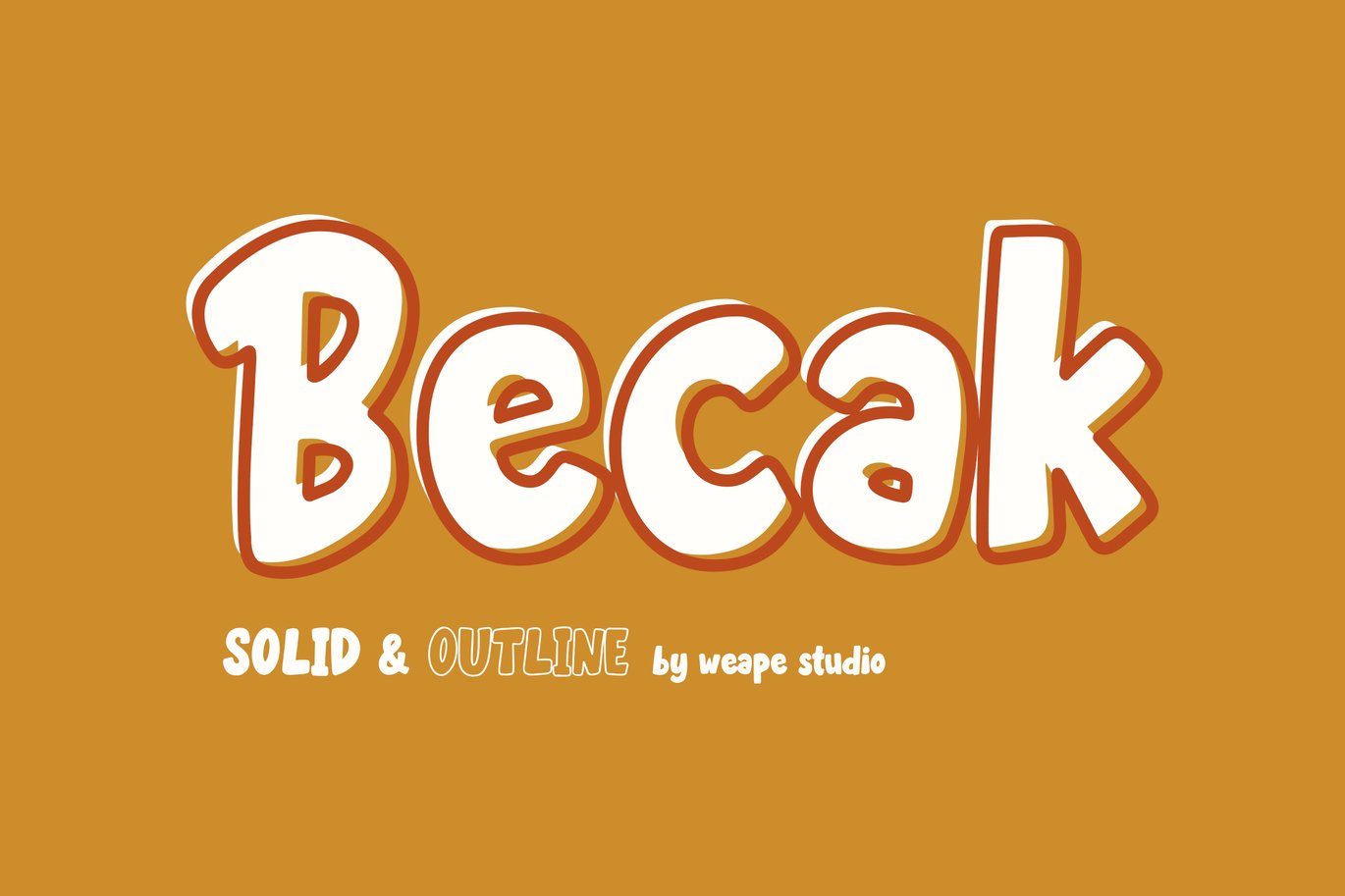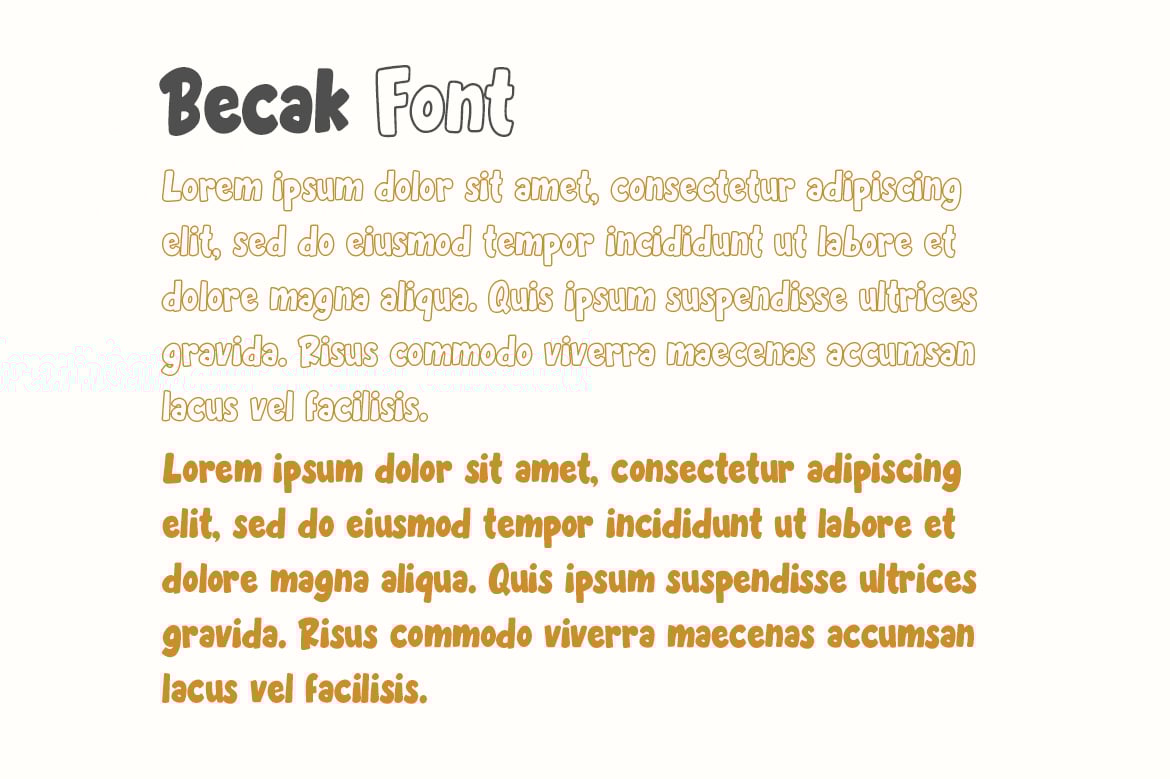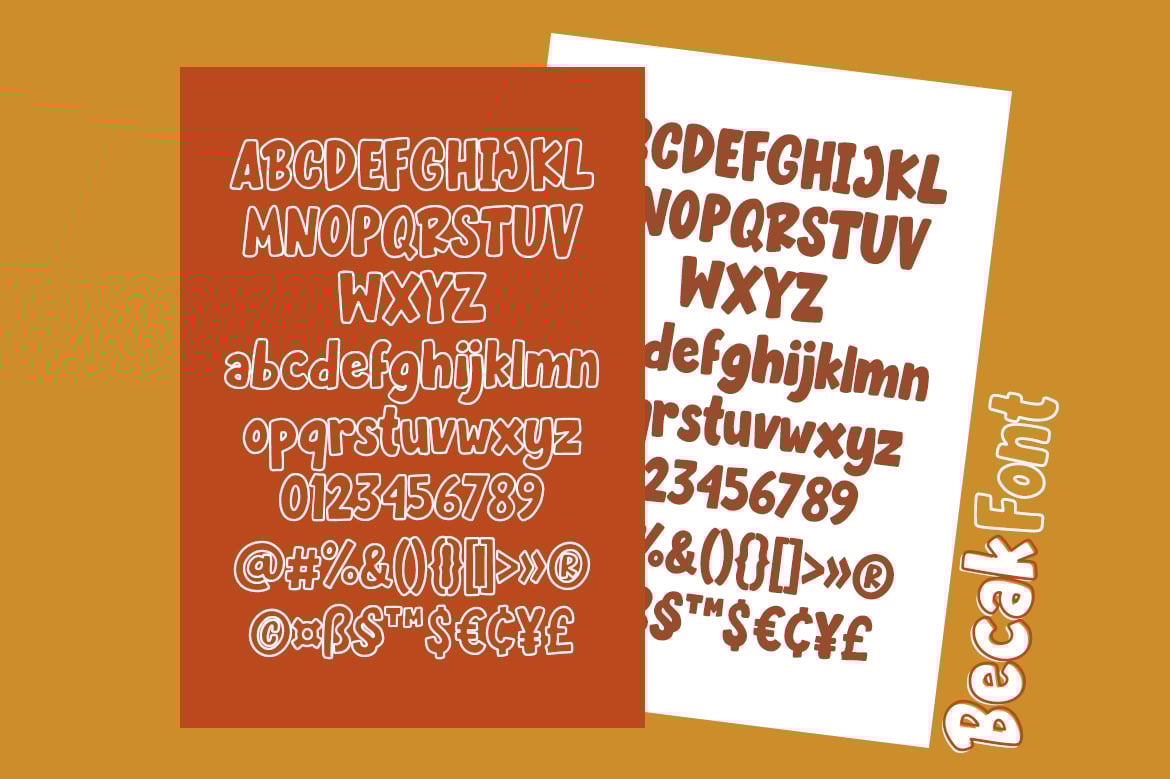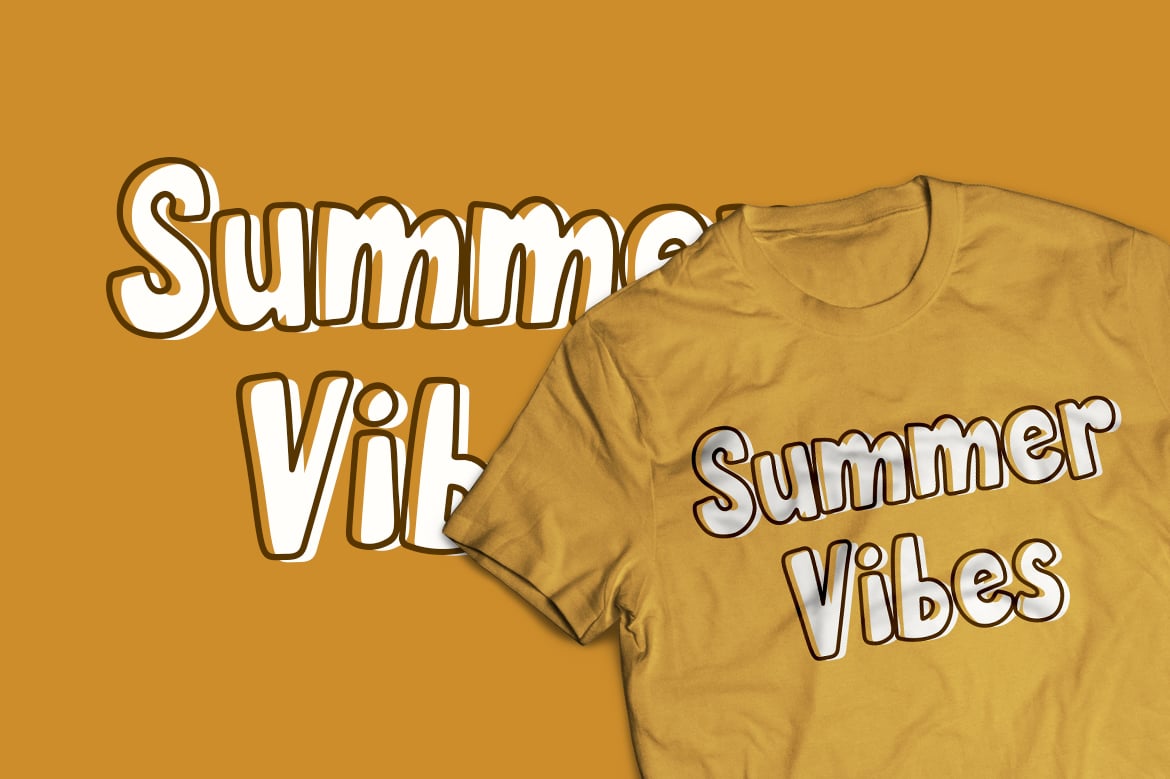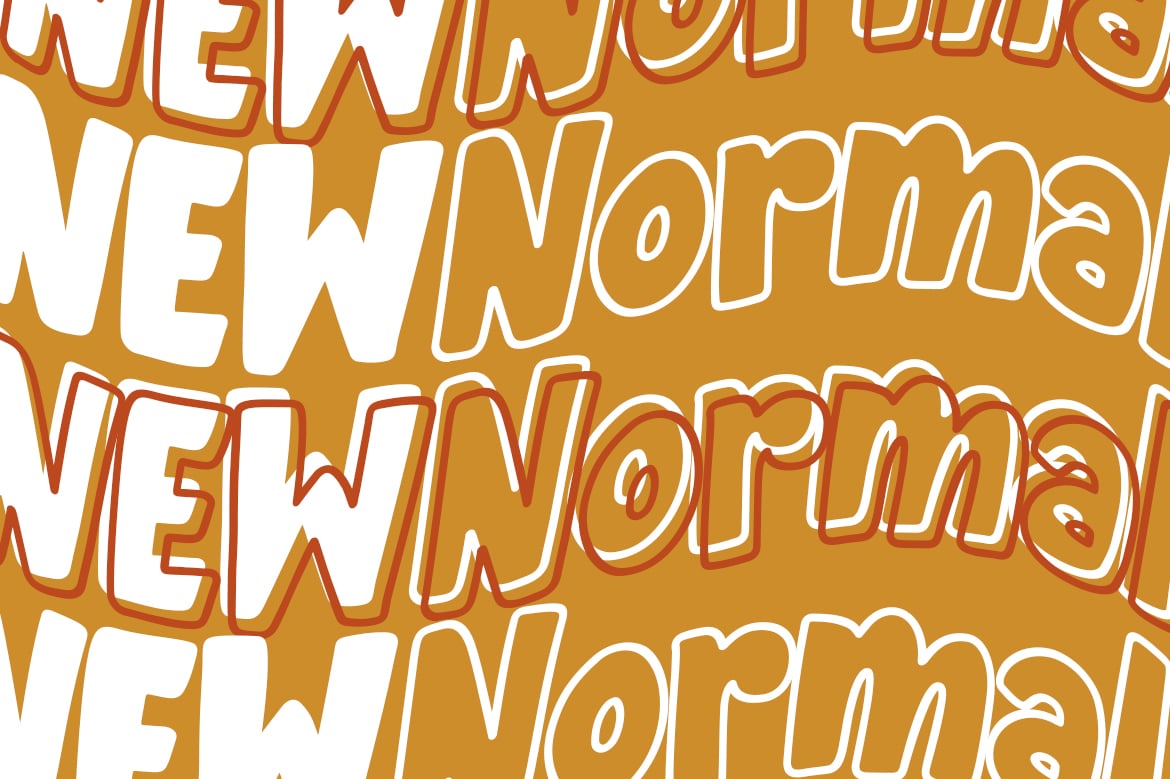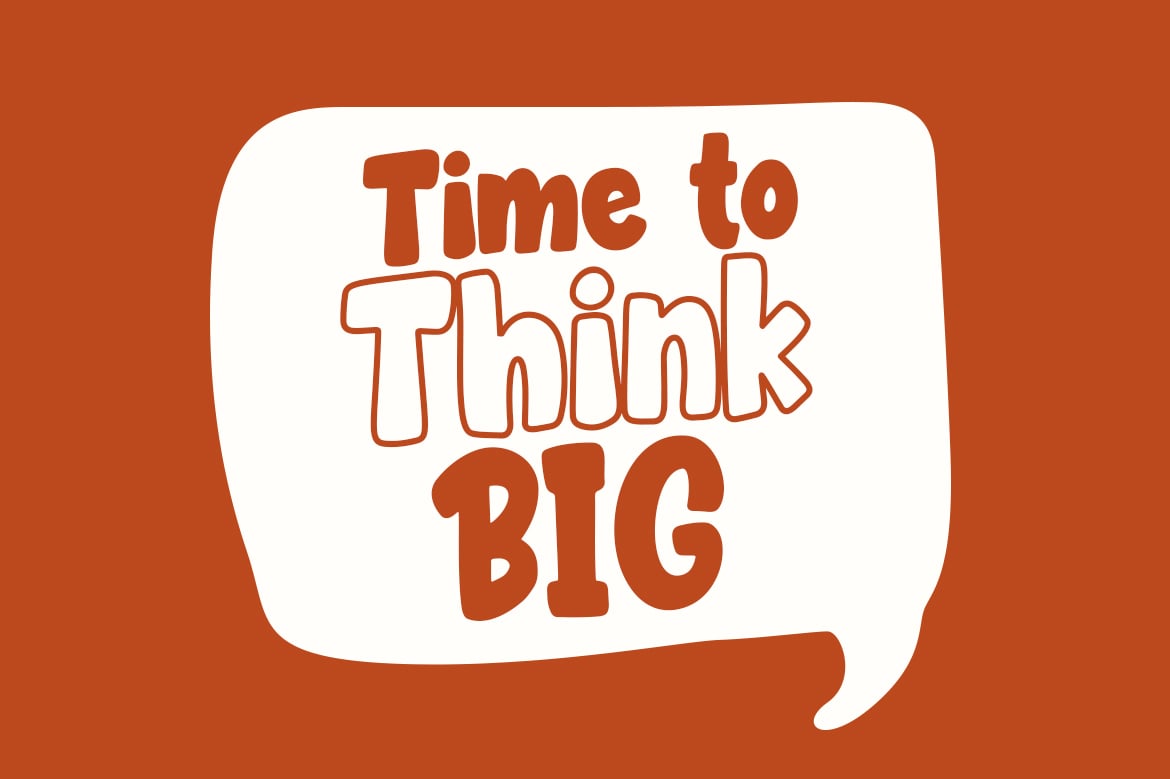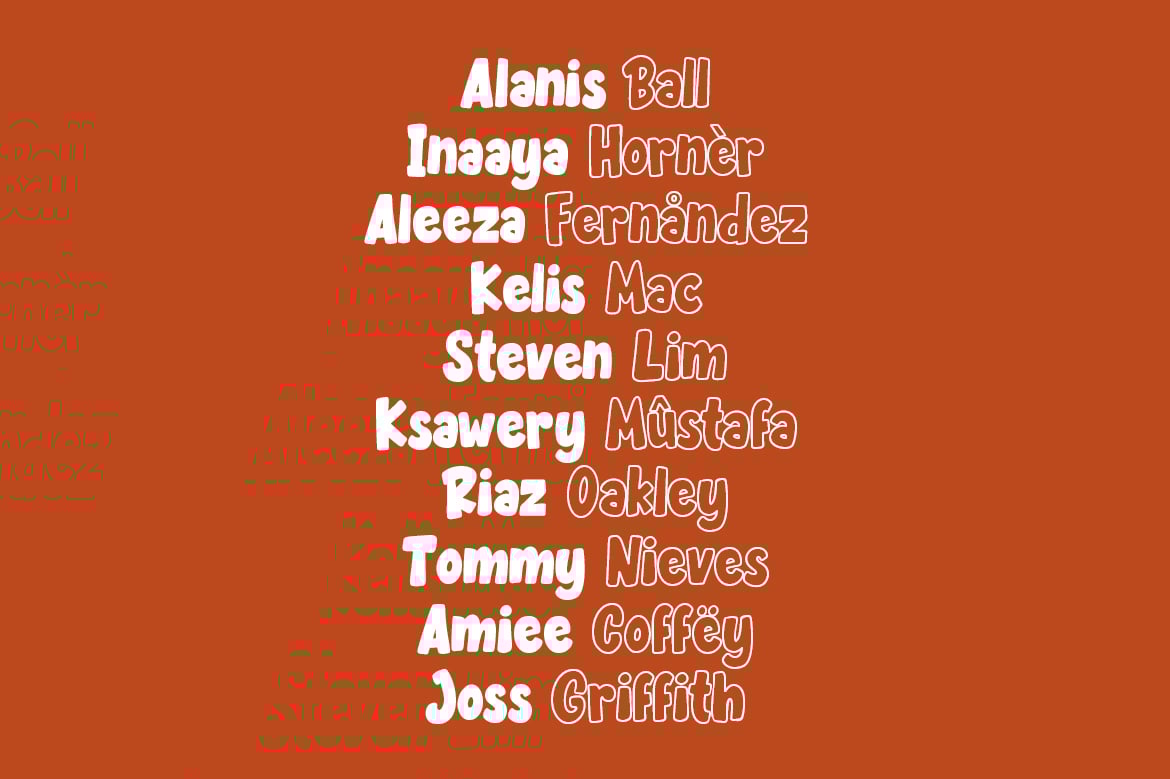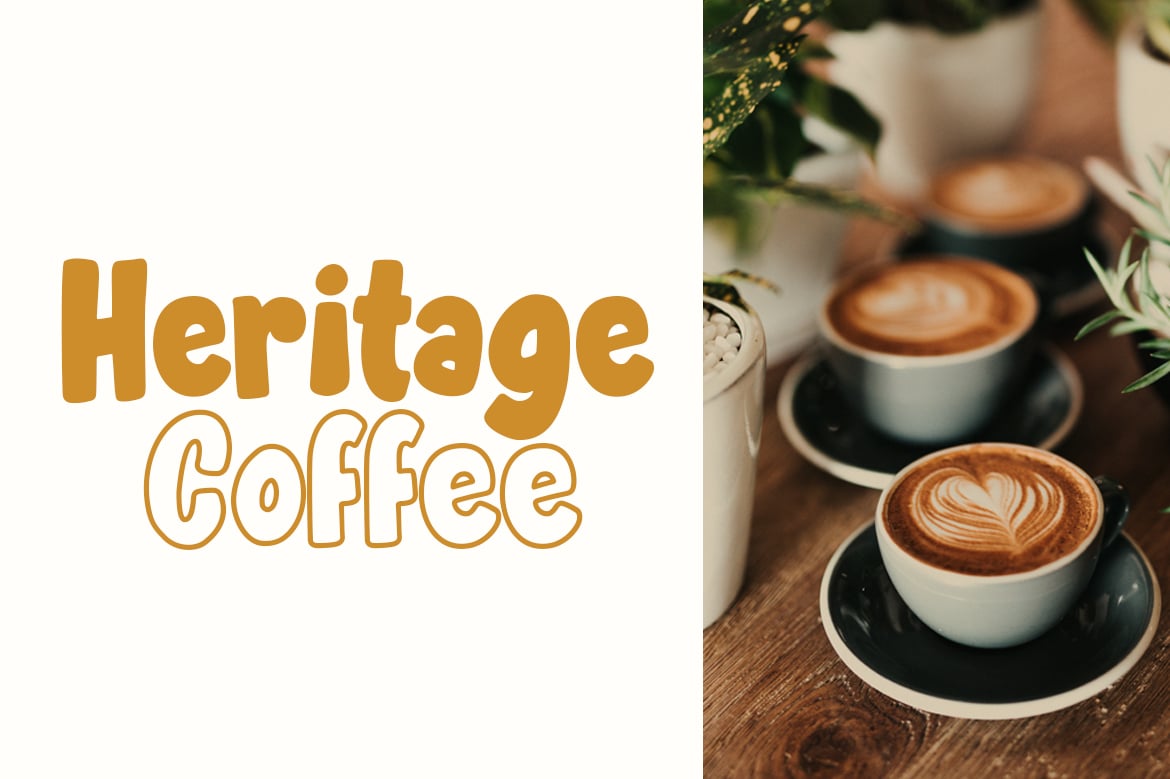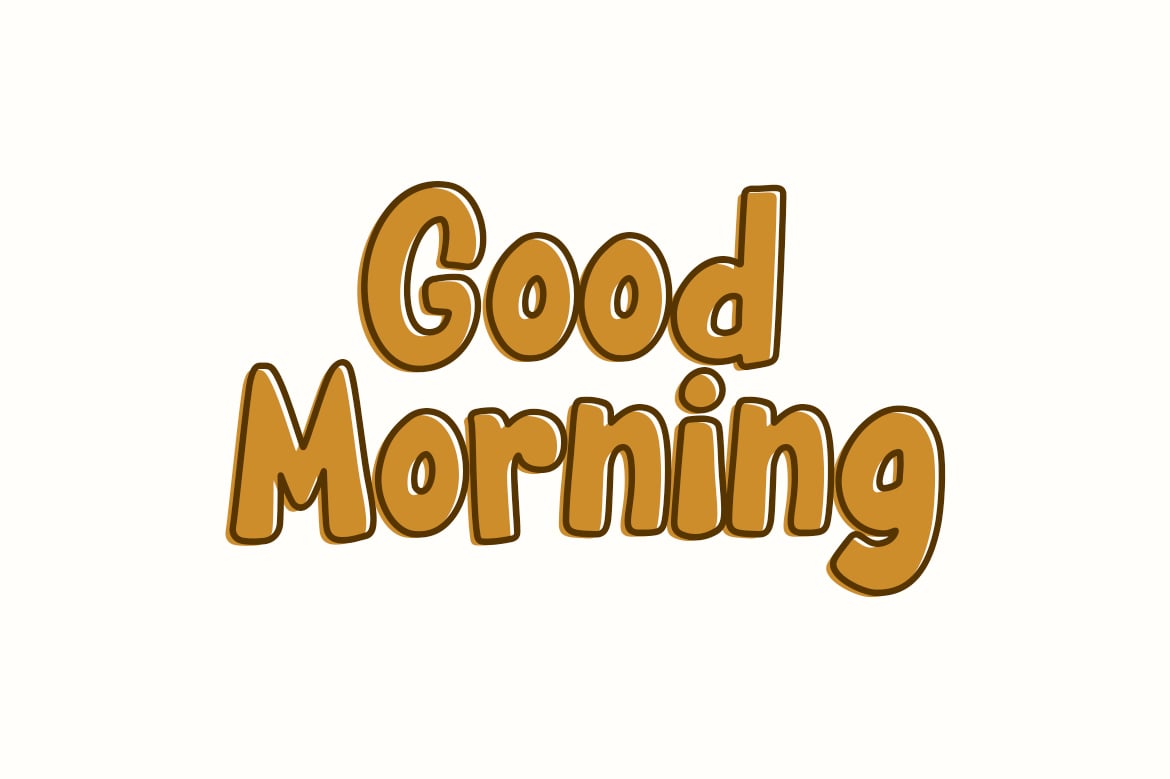
Becak – Solid & Outline Font
Introducing Becak, a new hand drawn font with the style of the playful and bold. Which is you can create a fun and fresh design.
With round corner and 2 styles solid and outline, this font is perfect for logo design, kids t-shirts, birthday cards, cover books, magazines, flyers, quotes, packaging, and more!
This font comes in uppercase, lowercase, punctuations, symbols & numerals, ligatures, and multilingual support.